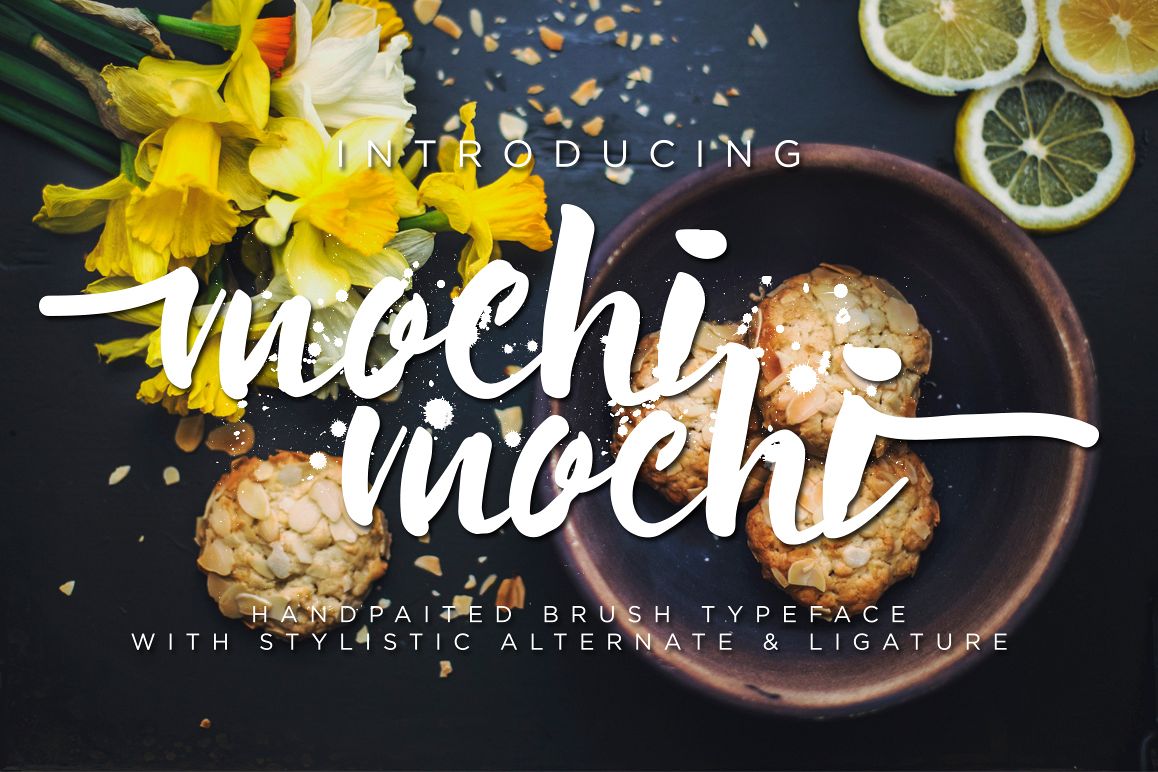
Mochimochi Typeface
Introducing Mochimochi Bold is new handpainted brush with stylistic alternate, ligature, and swashes for bonus. files include: Mochimochi Bold .otf Mochimochi Bold .ttf Mochimochi Swashes .otf u can use this font for project like a theme adventure, cover design, traveling, cafe, cooking, holiday, poster, quotes, headlines, logo, t-shirt. It comes with Uppercase, Lowercase, Numbers. contact me on  if you need a help. Thank you